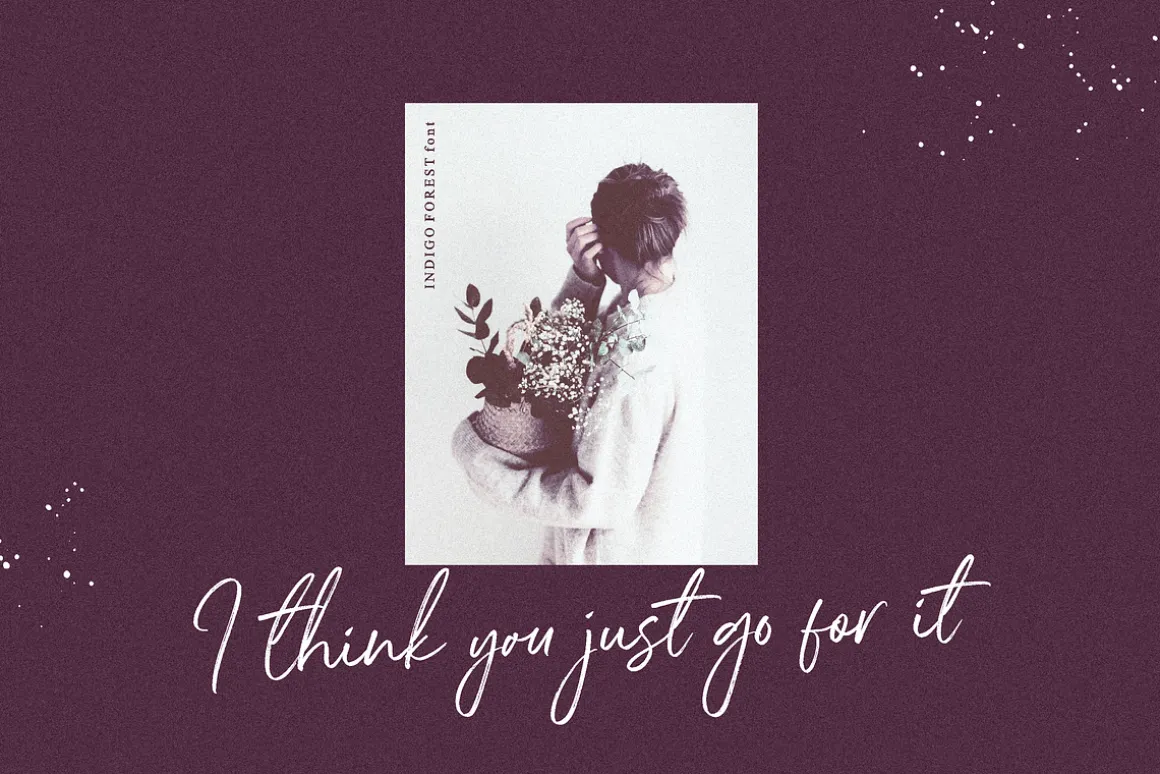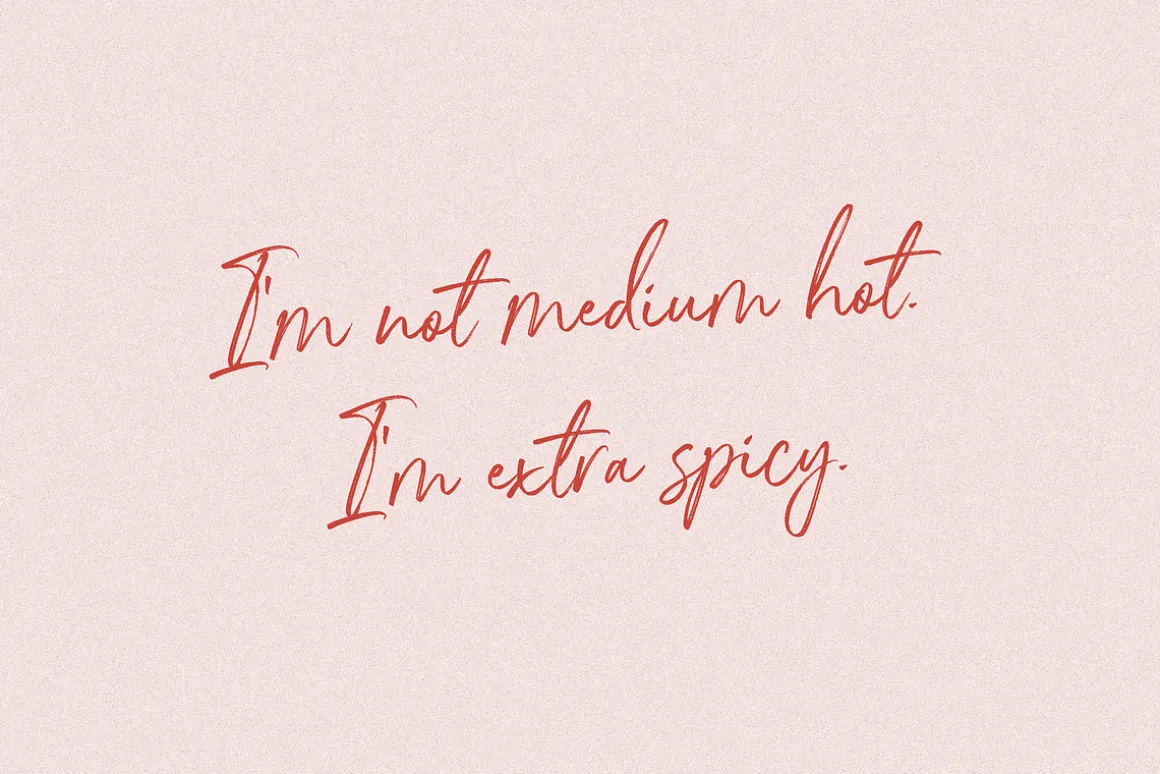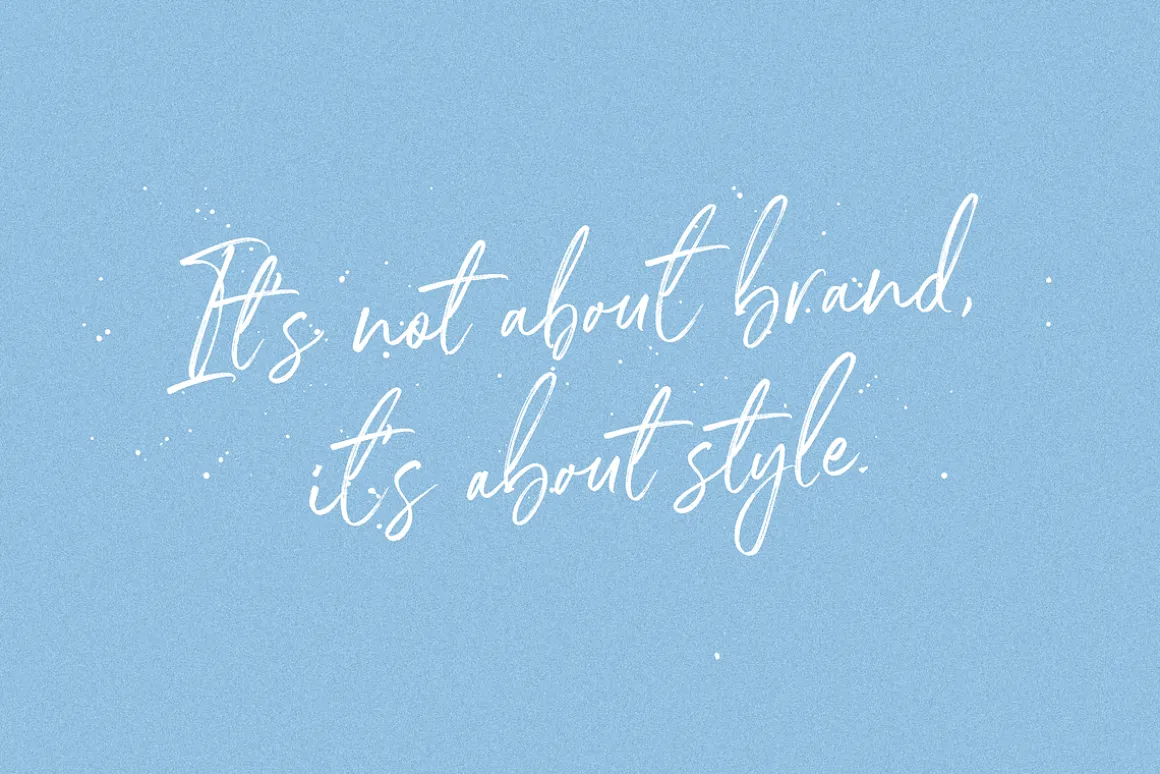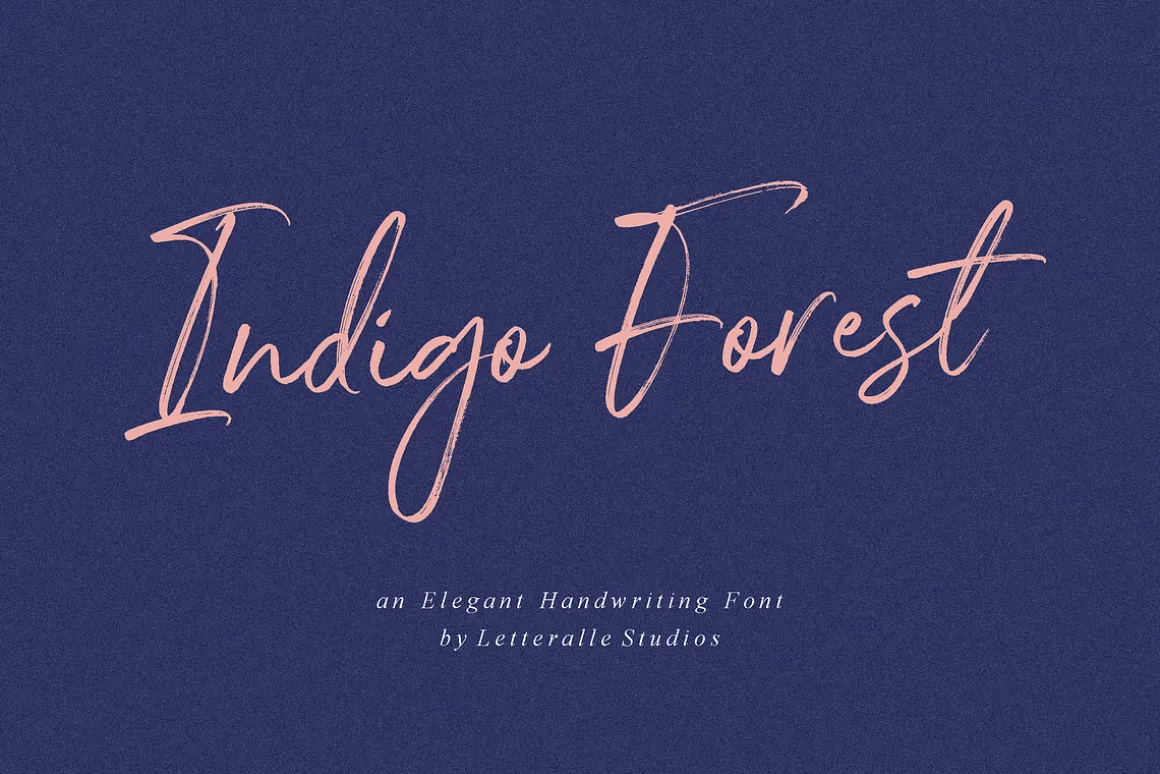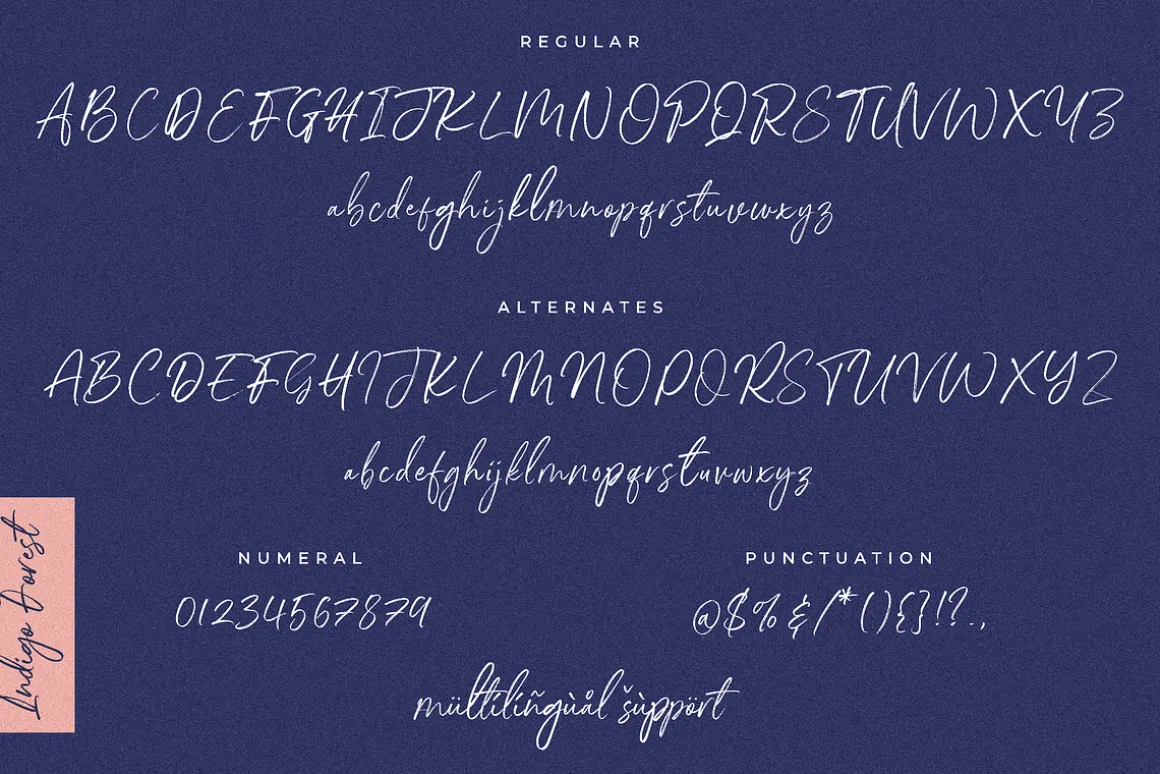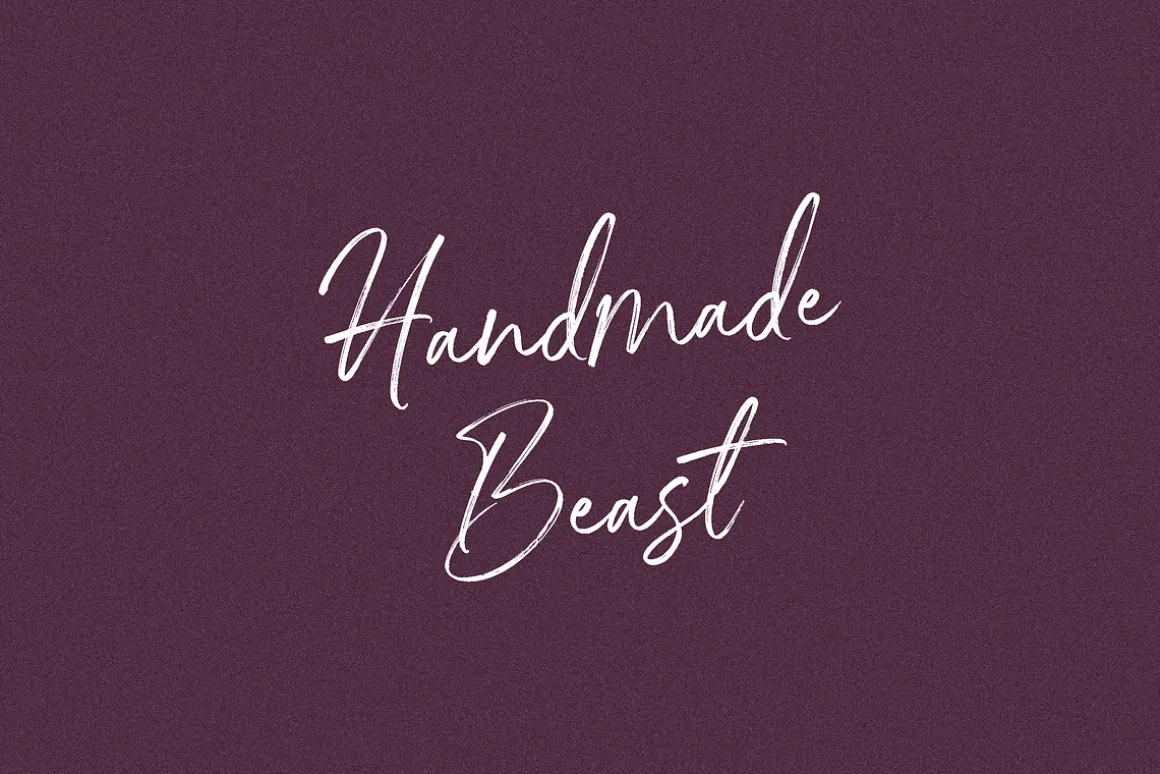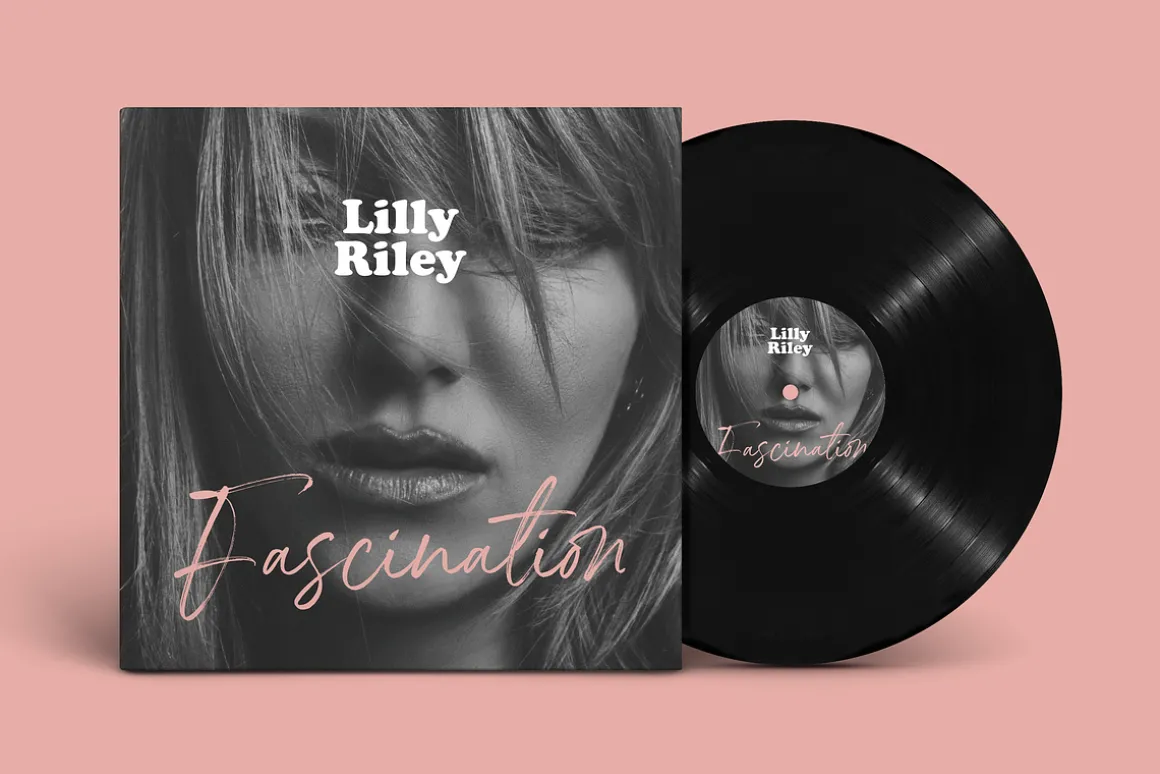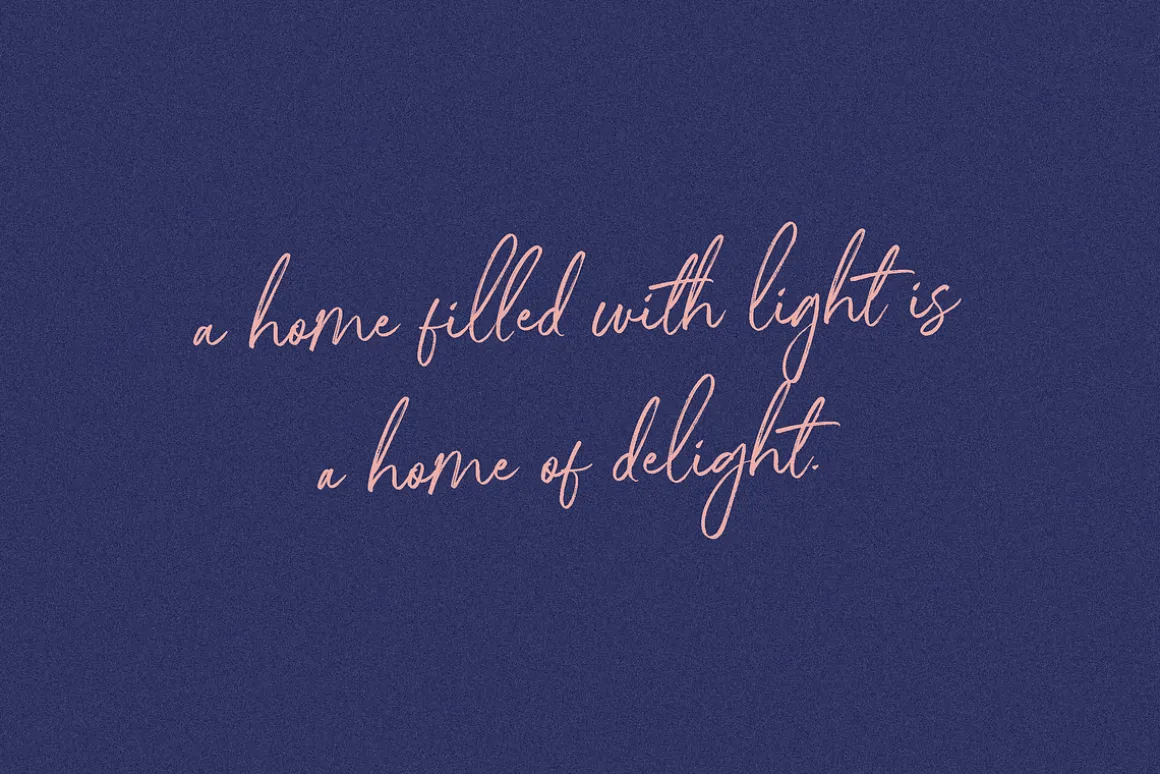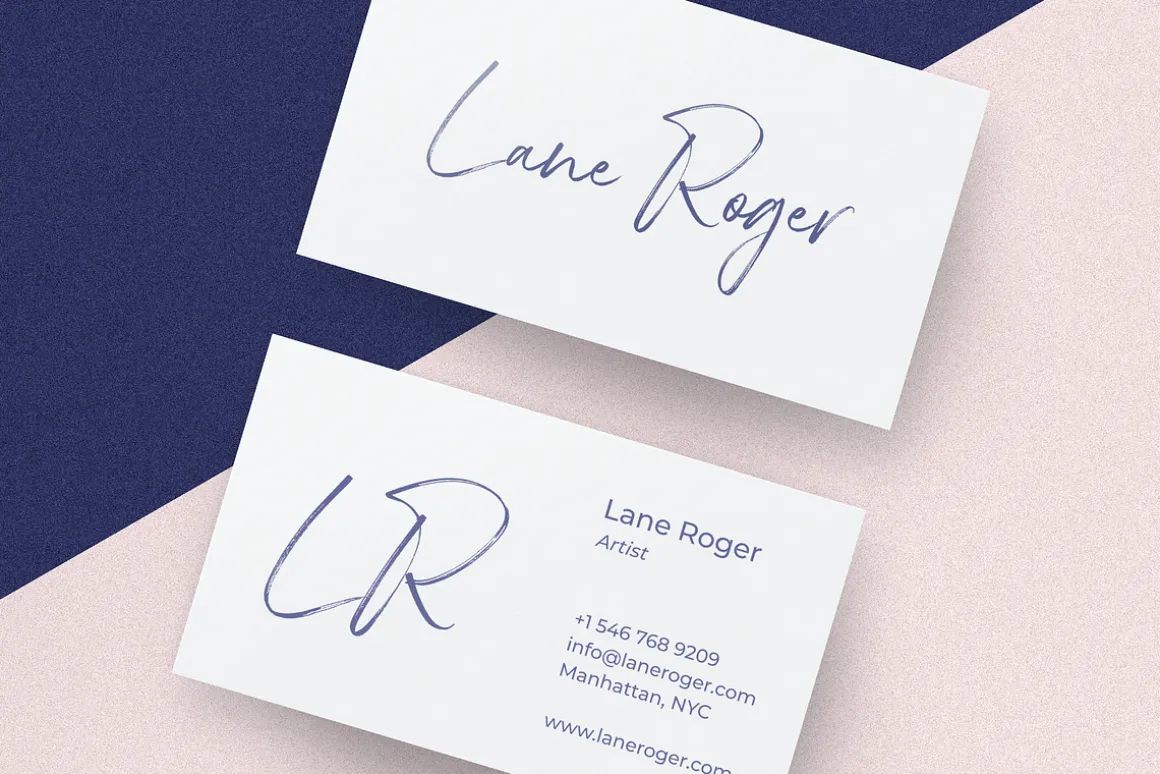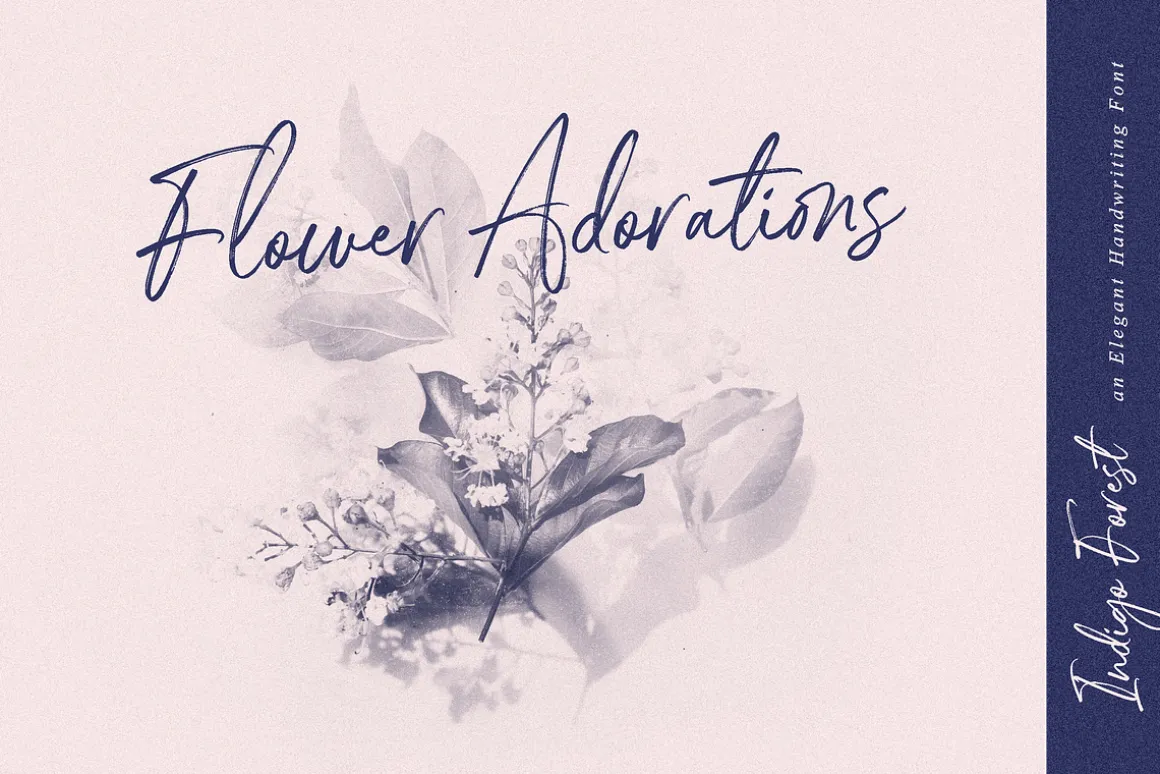
Introducing! Indigo Forest Font! a casual and charming brush font. Indigo Forest is very suitable to fill your design needs such as, branding, social media, merch, ads, book title, packaging, etc.
Indigo Forest includes 2 fonts :
Indigo Forest: The main font with Uppercase, Lowercase, Number, Punctuation, and also multilingual support.
Indigo Forest Alt: Besides you can access alternative characters from the main font through the opentype feature, you can also install this alternative fonts. Indigo Forest Alt font will give you other options for a character, which of course will add a natural impression.
Indigo Forest also has a some of ligatures that will enhance the natural impression.